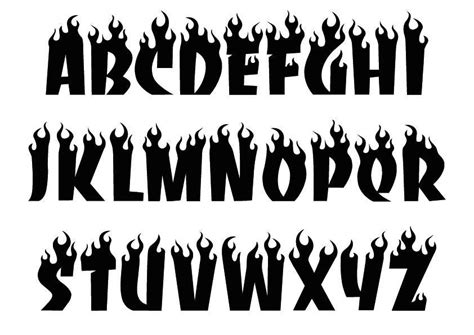
Thrasher Font With Flames Generator. If not, is it possible for someone to make it and post it here? The following tool will let you create text graphics and logos from your custom text using thrasher font, after generating an image, you can download it or click on the embed.
Eric swenson and fausto vitello started a skateboarding magazine called thrasher in january 1981, and it has been going strong ever since. Elevate your typography game and captivate your audience effortlessly. Use our free thrasher font generator tool below to create your own custom design logo or image. The following tool will let you create text graphics and logos from your custom text using thrasher font, after generating an image, you can download it or click on the embed. Web create text graphics with thrasher font. If not, is it possible for someone to make it and post it here? Enter your text, select a font, choose a font size, and pick your favorite colors. Dec 12, 2016 at 23:36. Anyone know where i can find this font for free?